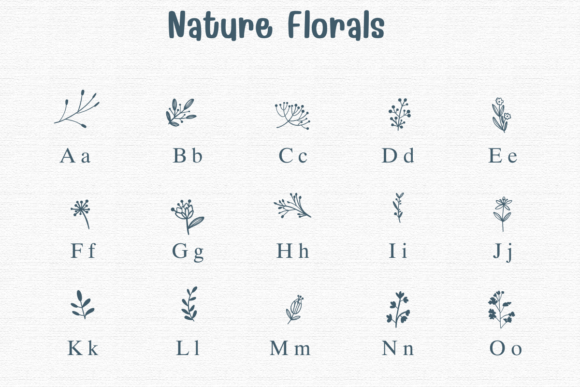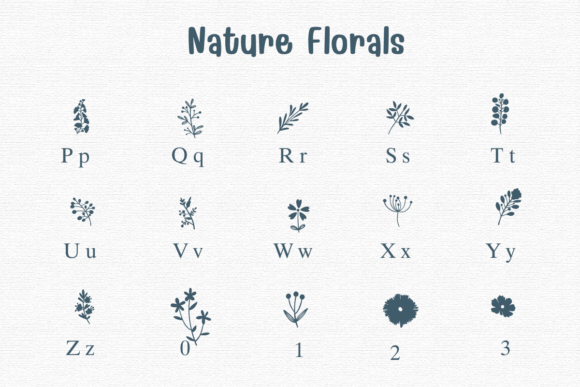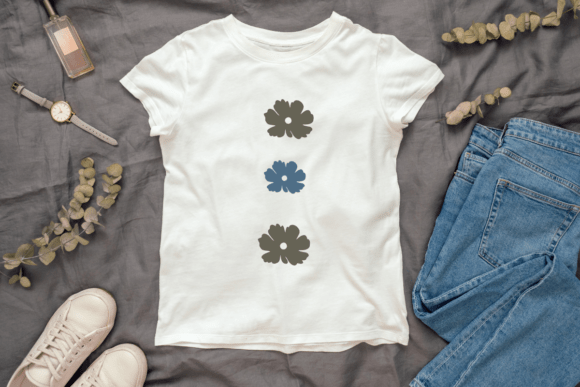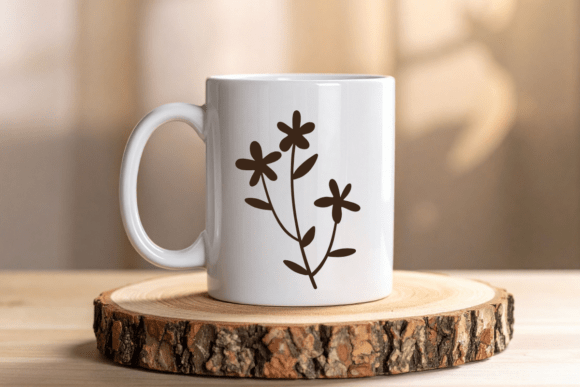
Introduction to Nature Florals Font
Have you ever found yourself stuck in a creative rut, searching for the perfect design element to elevate your project? Perhaps you’re working on a wedding invitation or a skincare packaging design and want to infuse it with a touch of organic charm. If so, you’re in luck! We’re excited to introduce you to Nature Florals Font, a stunning “Botanical Dingbats Font” that brings the beauty of the outdoors into your digital workspace.
This exquisite font features hand-penned silhouettes of leaves, berries, and wildflowers, offering a wide array of organic shapes that range from delicate stems to bold floral clusters. With Nature Florals Font, you can add a sophisticated, earthy touch to your designs with just a few keystrokes.
Key Features of Nature Florals Font
- High-quality design resource for creative projects, ideal for floral-themed designs, weddings, and spring-inspired artwork.
- Includes a range of customizable Nature Florals Font styles, allowing for flexibility in design applications.
- Perfect for designers seeking a unique and elegant design element to enhance their creative projects.
Honest Review: Nature Florals Font
The Nature Florals Font is perfect for creating a whimsical and natural feel in your designs. Its unique floral patterns and delicate textures make it ideal for crafting invitations, greeting cards, and other creative projects that require a touch of elegance.
The font is available in a transparent background option, which allows for seamless integration into any design. I also appreciate the high-quality design, making it easy to work with and customize.
- Unique floral patterns and delicate textures
- Available in transparent background option
- Only available in a few font weights
- Not ideal for large-scale text or headlines
Overall, I’m quite impressed with the Nature Florals Font. While it has some limitations, its unique charm and high-quality design make it a great addition to any design project. If you’re looking for a free download that’s perfect for creative projects, I highly recommend giving it a try.
Tips for Getting the Most Out of Nature Florals Font
To get the most out of the Nature Florals Font, experiment with different font sizes, colors, and layer styles. You can also combine it with other design elements, such as illustrations or graphics, to create a cohesive and visually appealing design.
The Nature Florals Font is perfect for a wide range of creative projects, including wedding invitations, baby shower decorations, and even branding materials. Its elegant and whimsical design makes it a great choice for any project that requires a touch of nature and beauty.